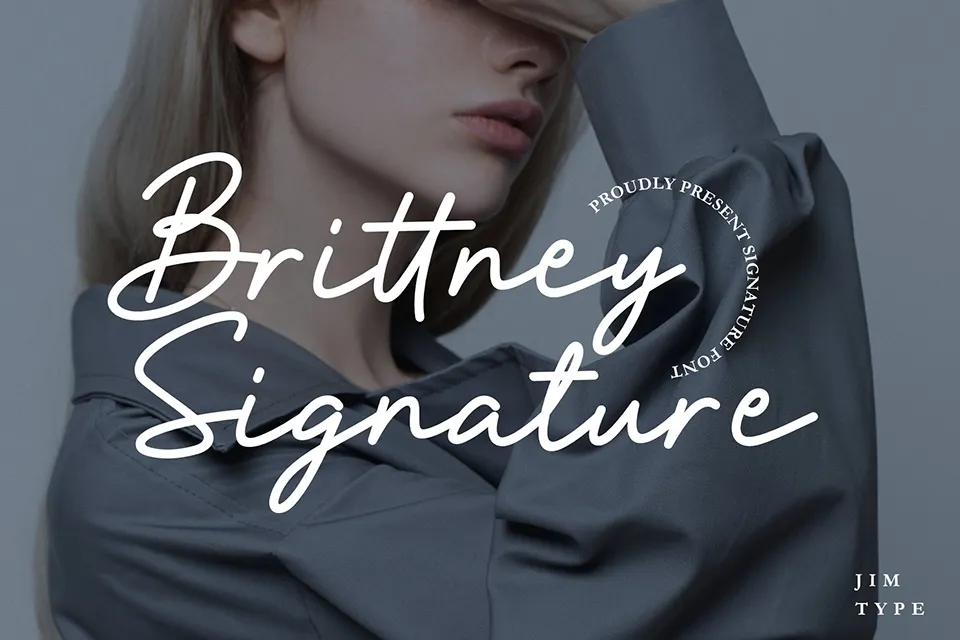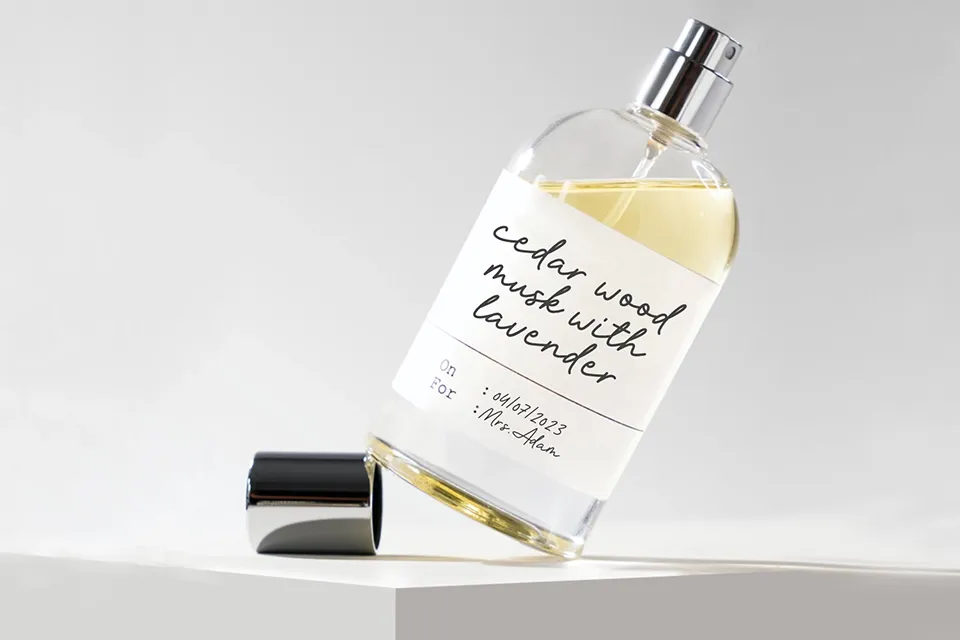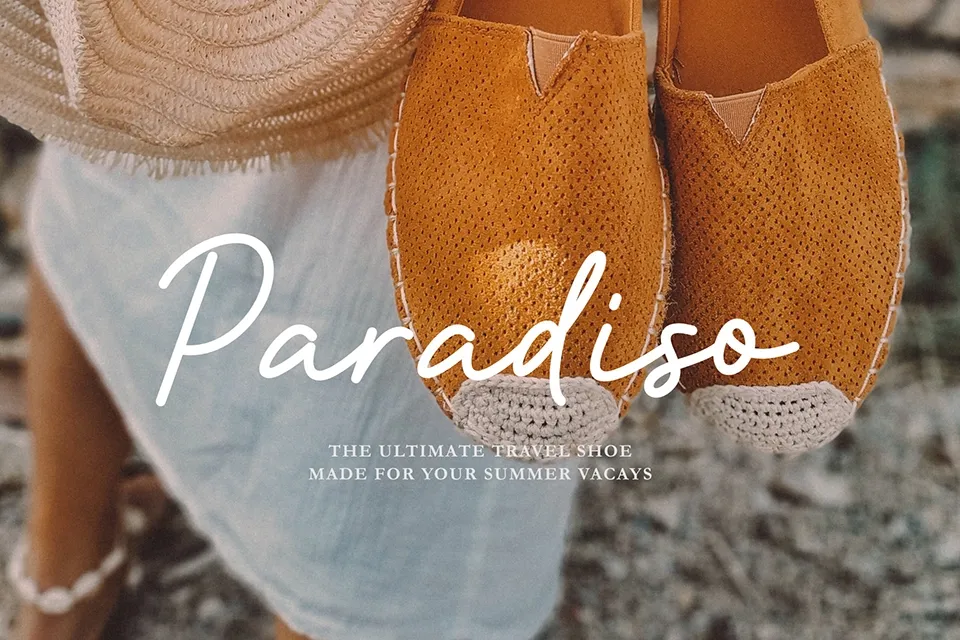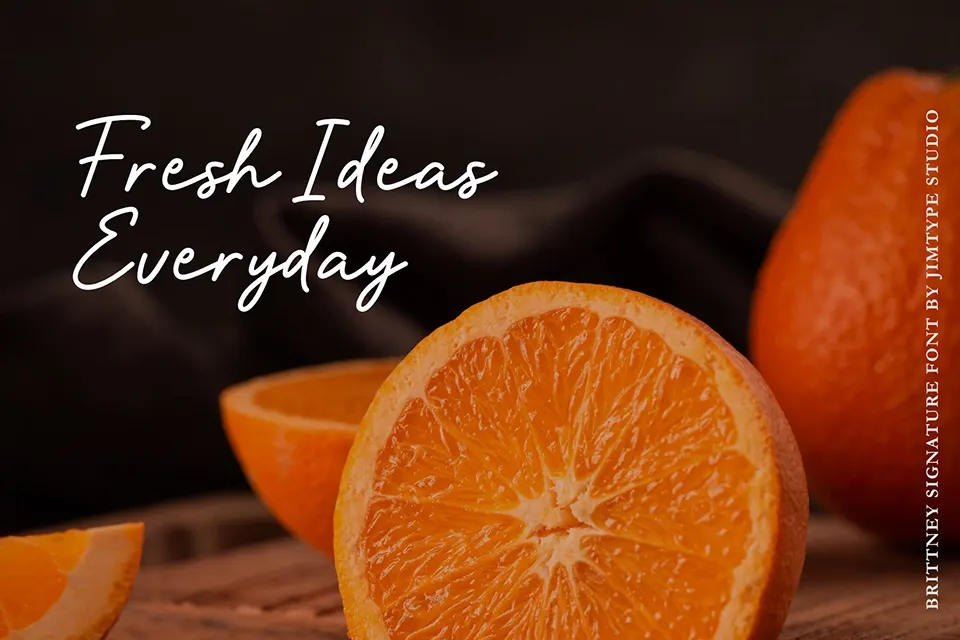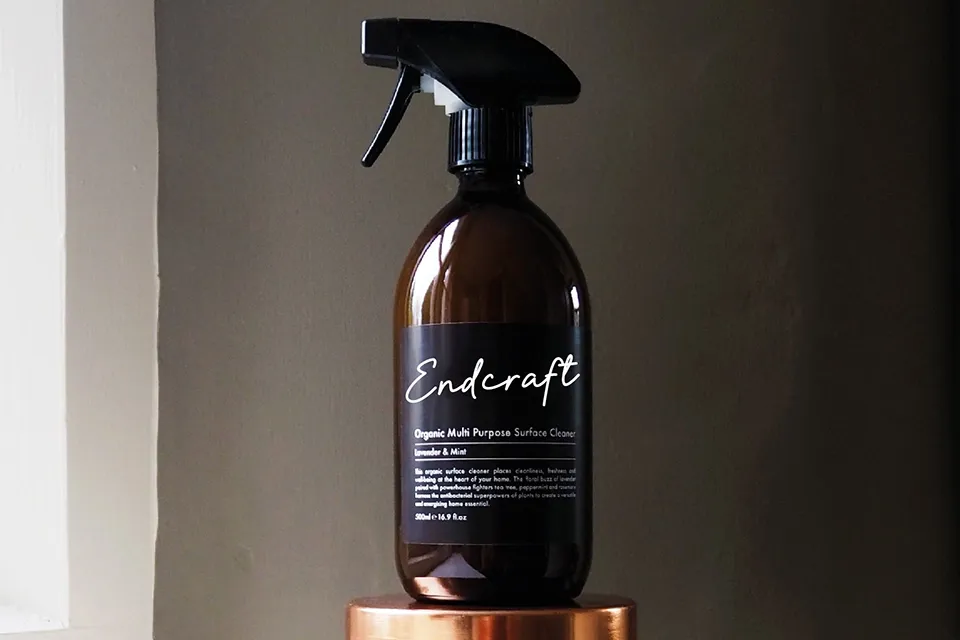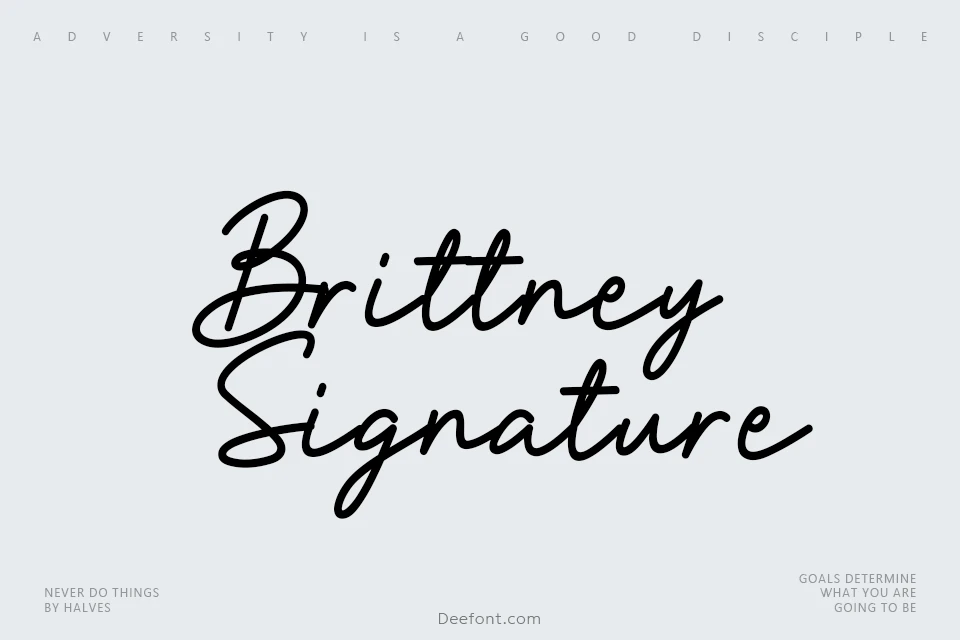
Brittney Signature Font
Brittney Signature Font is a stylish and elegant monoline signature script, perfect for branding projects, logos, social media graphics, business cards, packaging, and more. Its handwritten, feminine, and modern aesthetic brings a personal and sophisticated touch to any design. The font features smooth curves and a natural ink flow, making it ideal for projects that require a handwritten or signature-style look.